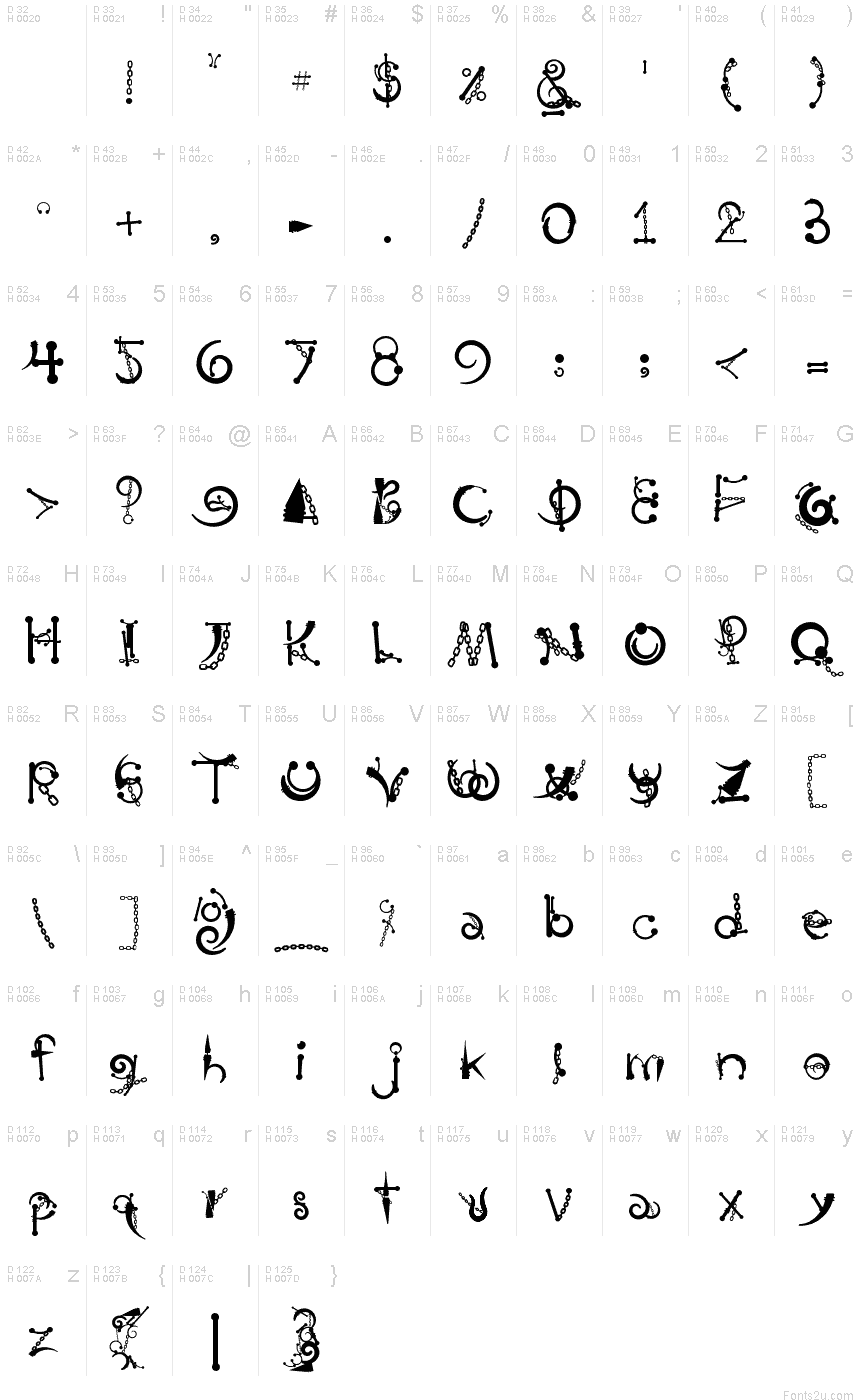
Body Piercing & Chains
Body Piercing & Chains is a free decorative display font filled with rings, spikes, bars, and hanging chains. Every character becomes a small piece of body jewelry. Rounded strokes, sharp points, and uneven attachments create a deliberately improvised silhouette.
Music posters are its clearest setting, especially for punk, industrial, or alternative events, with merchandise and tattoo-studio branding close behind. The hardware motifs can also echo photographed piercings or chain illustrations in fashion editorials.
A font made from body jewelry, ear plugs, tapers, piercings, and chains.